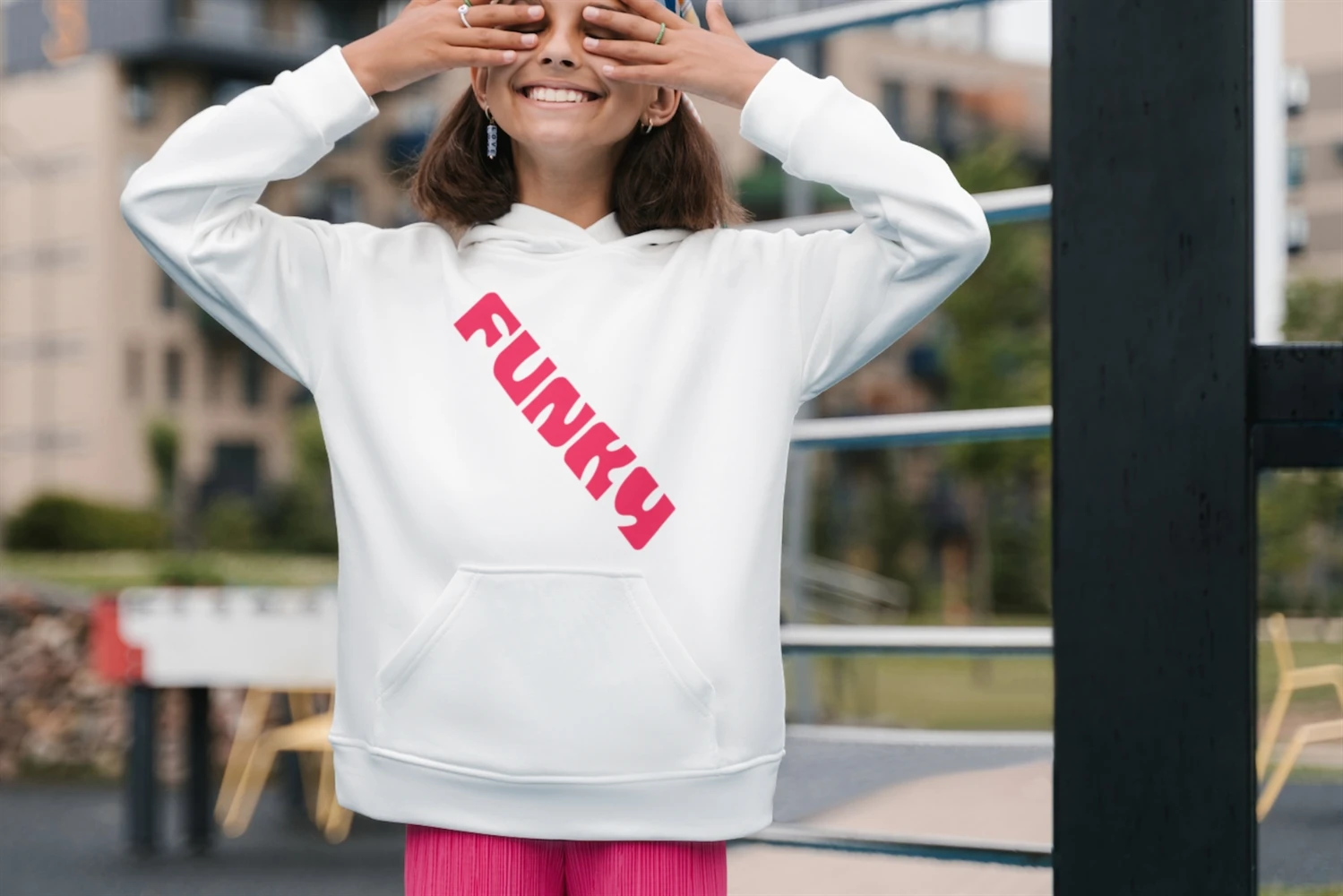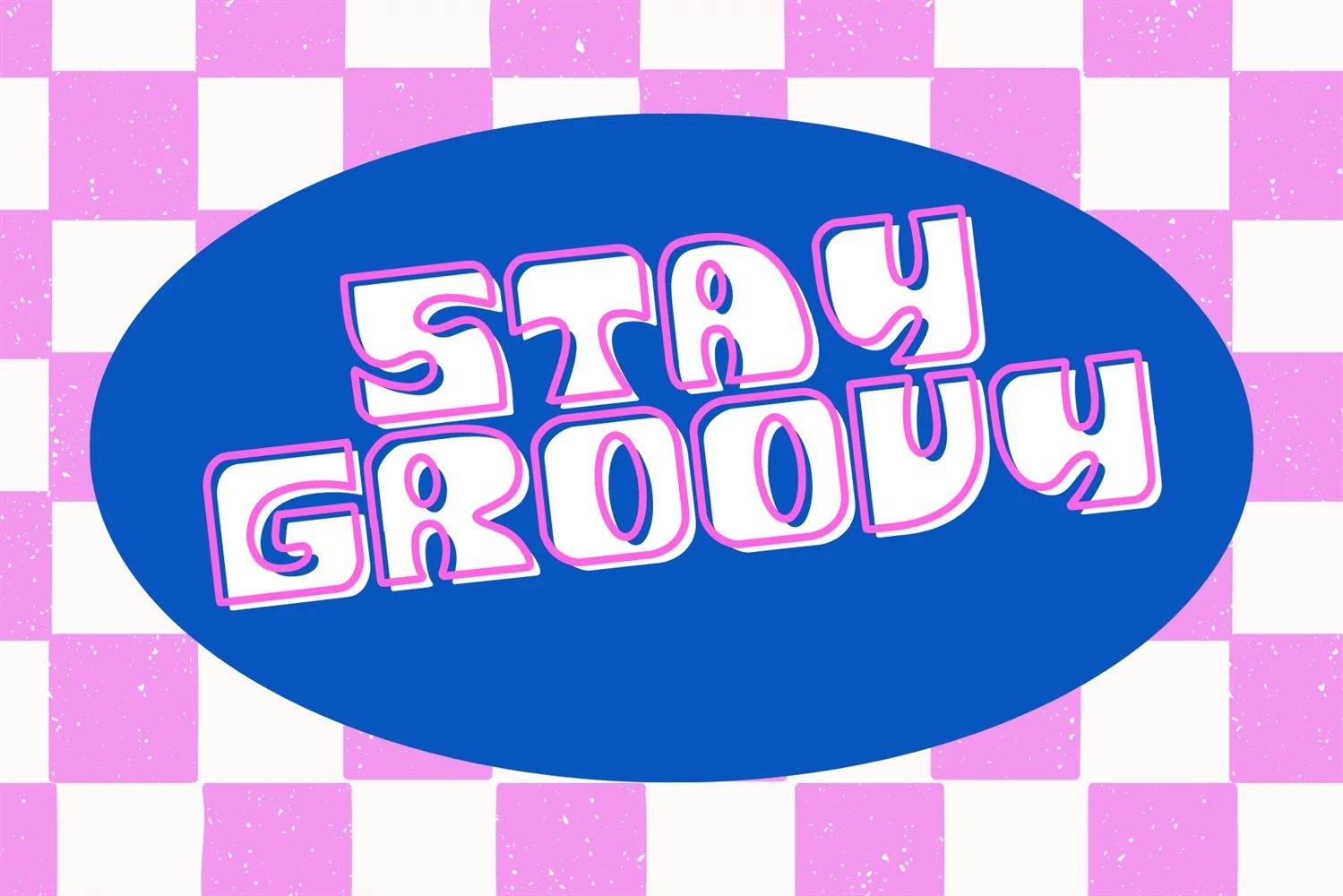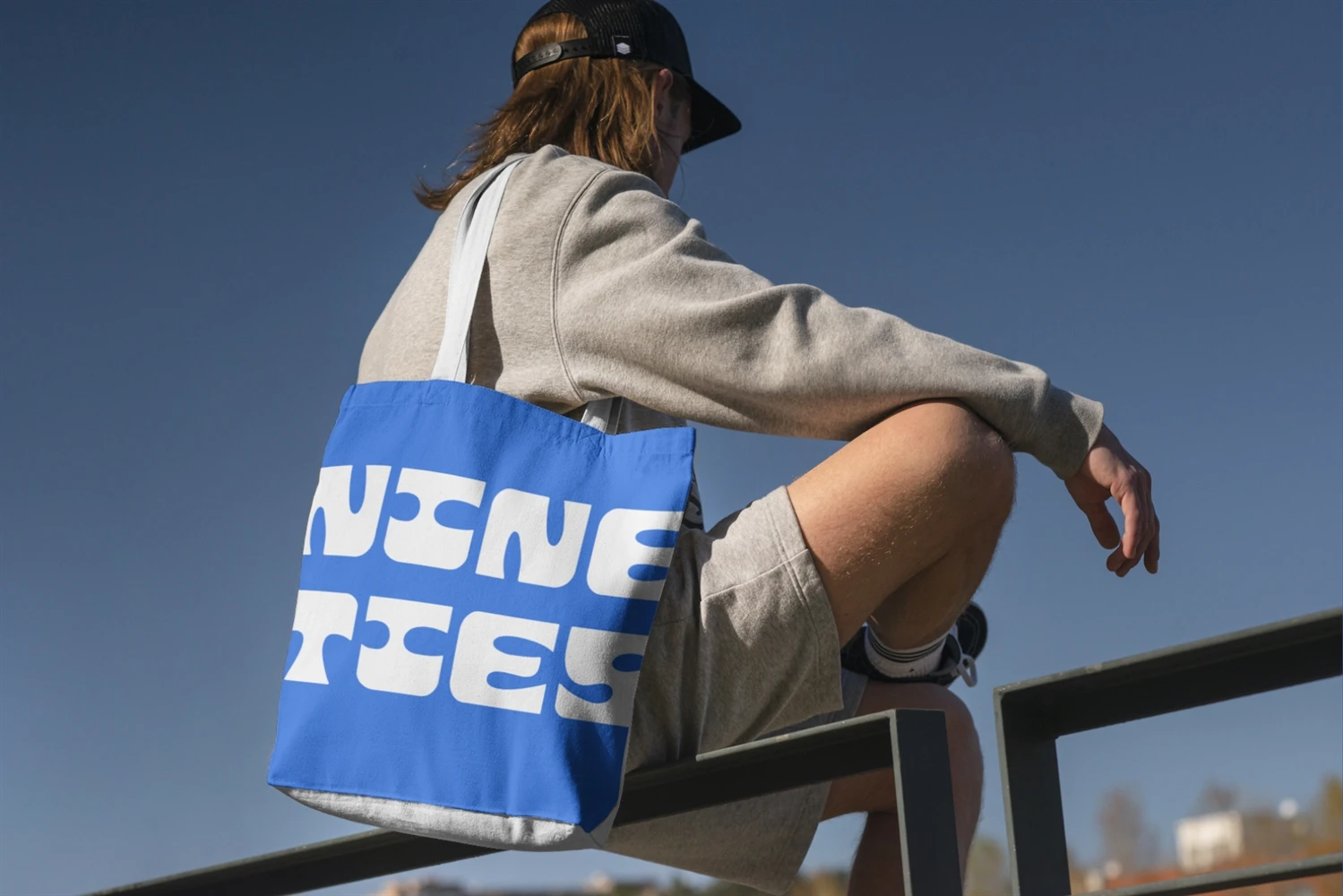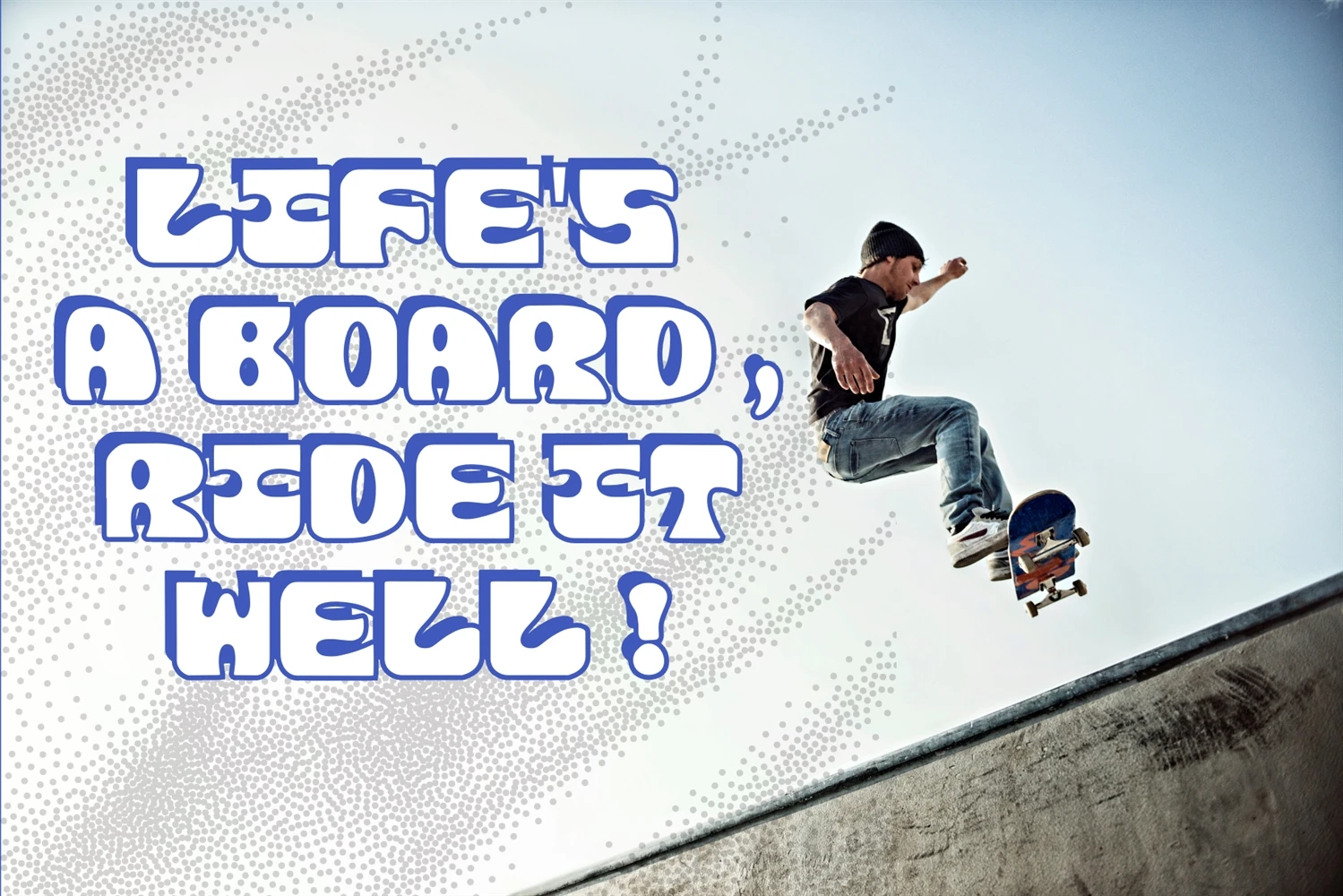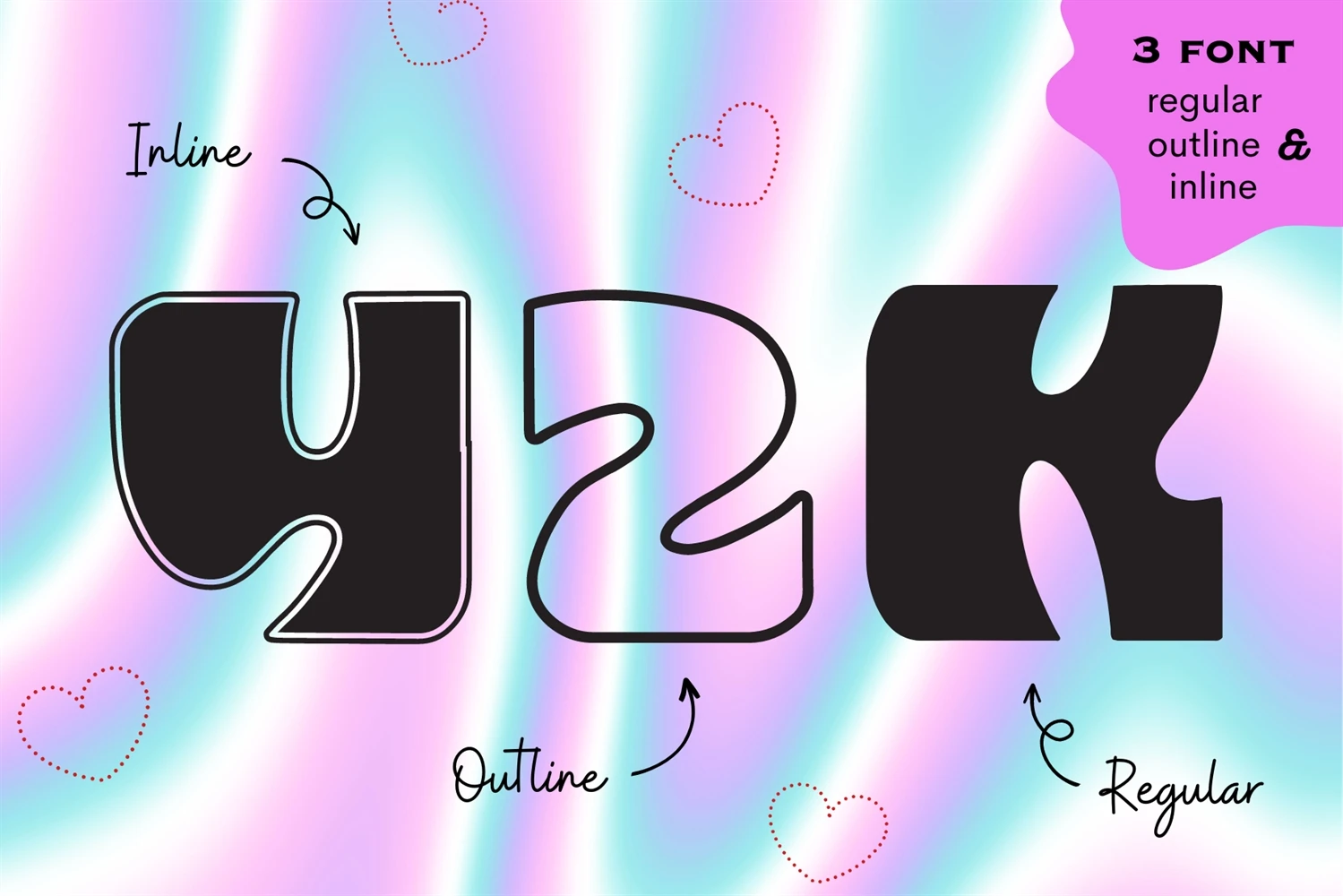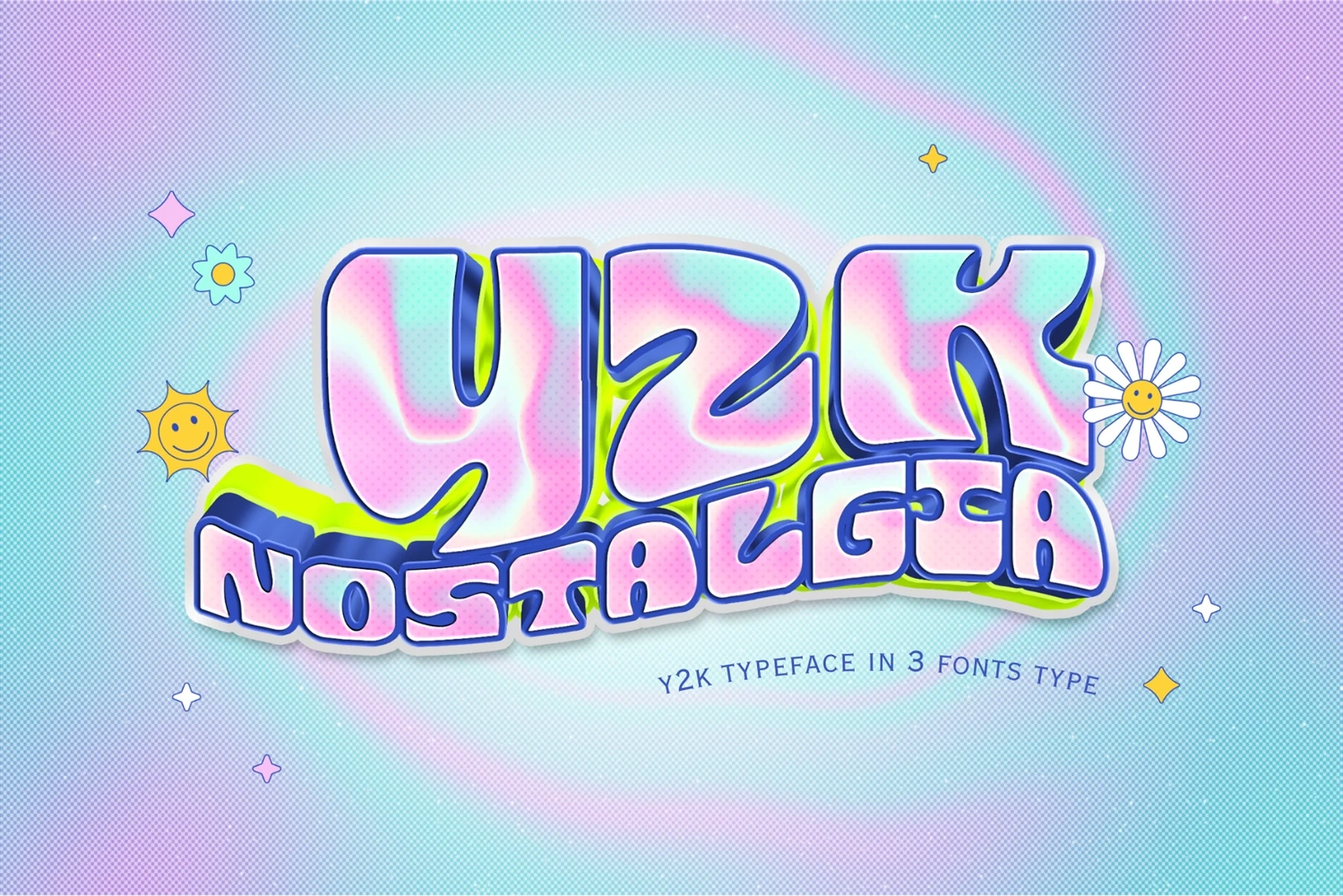
Y2K Nostalgia Font is a modern trendy in retro and y2k style font that is not only on trend and eye catching but also incredibly versatile in every projects. Whether youre working on product branding or content using , creating a display headline , or designing packaging for your latest project , Y2K Nostalgia font will surely bring an impress and super cool to your piece of work effortlessly !